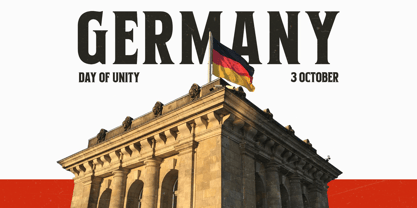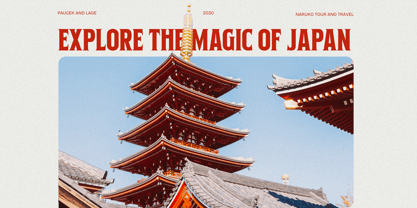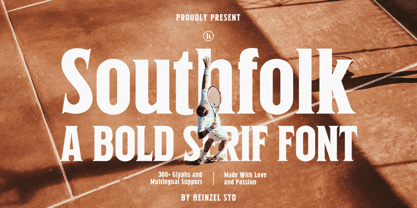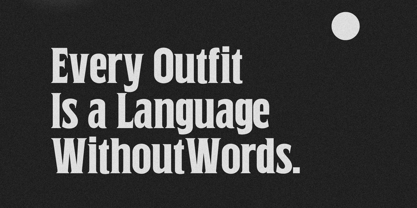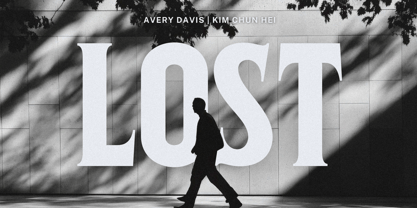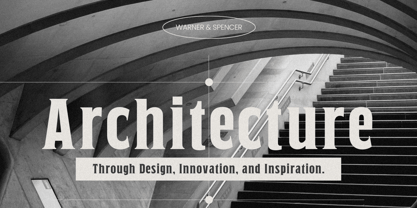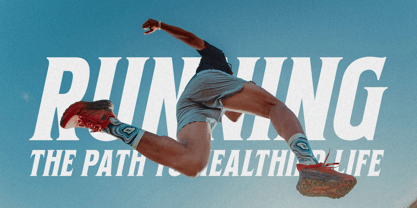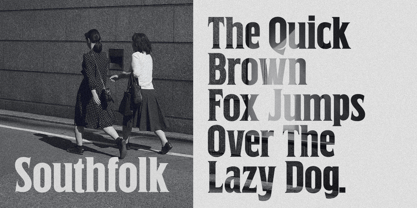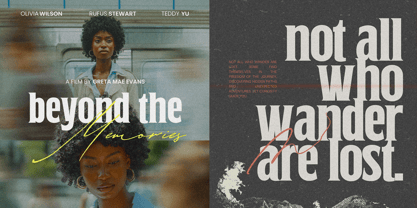
Southfolk
by Heinzel Std
The Southfolk Font Family was designed by Nofi Sofyan Hadi and published by Heinzel Std. Southfolk contains 2 styles and family package options. More about this family
Southfolk is a powerful bold serif font designed to make a strong and confident statement. With its sturdy letterforms, sharp serifs, and balanced proportions, Southfolk delivers a classic yet modern aesthetic perfect for branding, editorial design, logos, headlines, packaging, posters, and sports-themed projects. Inspired by vintage typography with a contemporary twist, Southfolk combines elegance and strength in every character. Its bold weight ensures high readability while maintaining a stylish and premium feel. Whether you’re creating a luxury brand identity, athletic campaign, or eye-catching social media graphic, Southfolk provides the visual impact your design needs. This font includes 300+ glyphs and multilingual support, making it versatile for global projects. Carefully crafted with attention to detail, Southfolk brings personality, authority, and timeless charm to any layout. Perfect for designers who want a bold serif font that stands out with confidence and sophistication.
Designers: Nofi Sofyan Hadi
Foundry: Heinzel Std